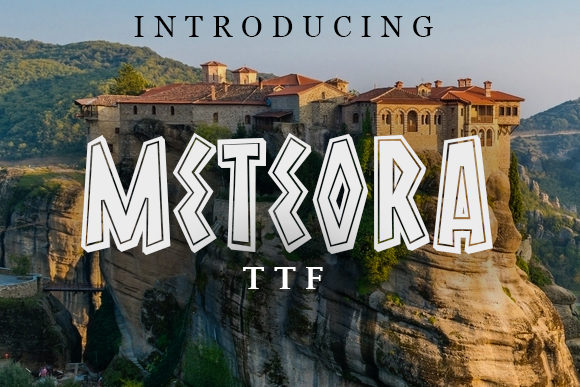
Meteora Font: A Stunning Greek-Style Font for Your Design Needs
The Meteora font is a beautiful, Greek-style font that can add a touch of elegance and sophistication to any design project. Whether you’re looking to create a stunning poster, flyer, or print, this font is sure to impress. In this article, we’ll take a closer look at the Meteora font, its features, and how you can use it to take your designs to the next level.
What is Meteora Font?
The Meteora font is a typeface inspired by traditional Greek typography. Its unique design combines classic elements with a modern twist, making it perfect for a wide range of design applications. The font features beautiful, flowing lines and intricate details that give it a distinctive look.
Design Applications for Meteora Font
The Meteora font is incredibly versatile and can be used for a variety of design projects, including:
- Posters: Create eye-catching posters for events, promotions, or advertisements.
- Flyers: Design stunning flyers for businesses, services, or products.
- Prints: Use the Meteora font for brochures, catalogs, or any other print materials.
- Logos: The font’s unique design makes it perfect for creating logos that require a touch of elegance.
Benefits of Using Meteora Font
There are several benefits to using the Meteora font in your design projects:
- Unique Design: The Meteora font features a distinctive design that sets it apart from other fonts.
- Elegant and Sophisticated: The font’s classic elements and modern twist make it perfect for designs that require an air of elegance and sophistication.
- Highly Versatile: The Meteora font can be used for a wide range of design applications.
- Easy to Read: Despite its intricate details, the font remains easy to read, making it perfect for body text and headings.
Tips for Using Meteora Font
To get the most out of the Meteora font, here are some tips to keep in mind:
- Use it Sparingly: While the Meteora font is beautiful, it’s best to use it sparingly to avoid overwhelming the design.
- Pair it with Other Fonts: Experiment with pairing the Meteora font with other fonts to create a unique and visually appealing design.
- Adjust the Size and Color: Play around with different sizes and colors to find the perfect combination for your design.
- Use it for Headings and Titles: The Meteora font is perfect for headings and titles, where its intricate details can really shine.
Meteora Font Inspiration
If you’re looking for inspiration for your design projects, here are some ideas to get you started:
- Greek-Inspired Designs: Use the Meteora font to create designs that reflect Greek culture and heritage.
- Elegant Event Posters: Create stunning posters for events, such as weddings, galas, or conferences.
- Luxury Brand Logos: Use the Meteora font to create logos for luxury brands that require an air of sophistication.
The Meteora font is a stunning, Greek-style font that can add a touch of elegance and sophistication to any design project. Its unique design, versatility, and ease of use make it perfect for a wide range of applications. Whether you’re a designer, artist, or simply someone looking to create something beautiful, the Meteora font is definitely worth checking out.